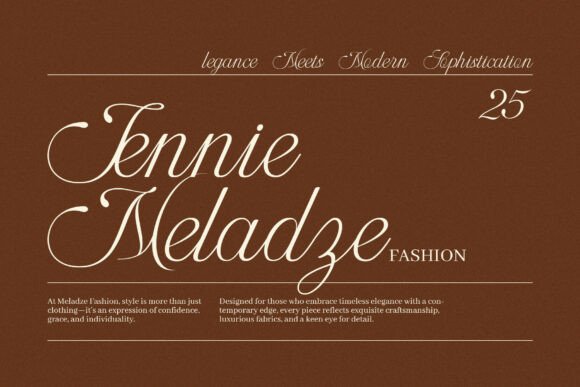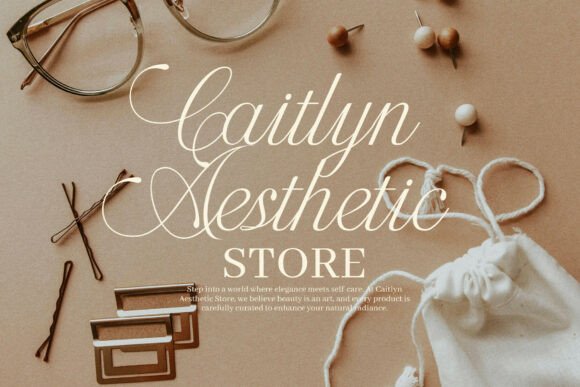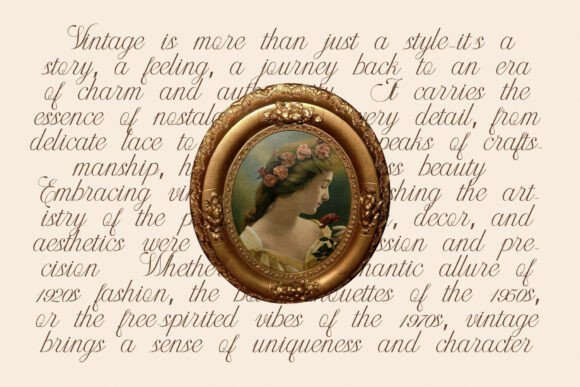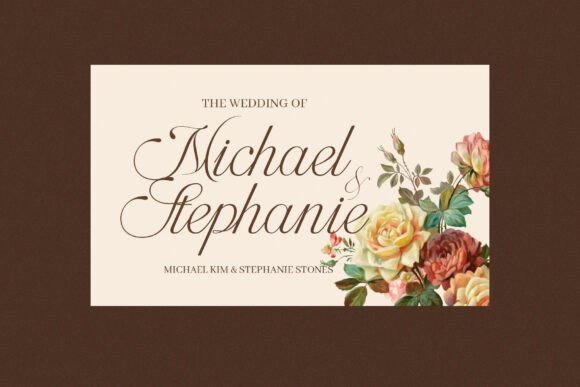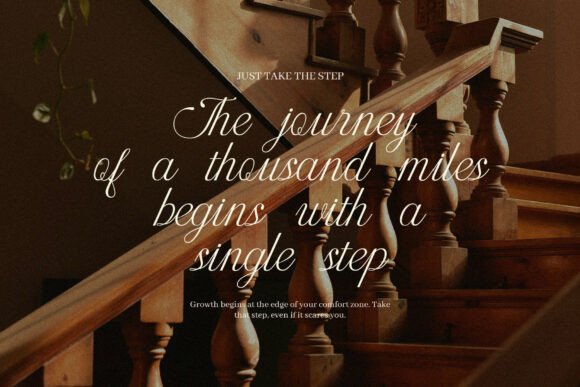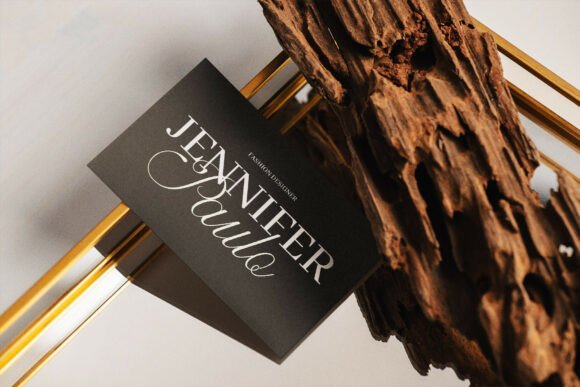
Introducing Amerys Font: Elegance Meets Modern Sophistication
Amerys is a stunning script font that seamlessly blends classic beauty with a modern touch, making it a perfect choice for designers and crafters looking to add a touch of luxury to their projects. At first glance, Amerys showcases refined curves, graceful strokes, and flowing connections that exude both luxury and personality.
The Art of Elegance: Key Features of Amerys Font
One of the standout features of Amerys is its delicate contrast between thick and thin lines, which adds a sophisticated rhythm to the text. This thoughtful design makes each word appear carefully crafted rather than mechanically drawn, giving it a unique and personal touch. The font also boasts long, sweeping flourishes and fine-line strokes, capturing a classic appeal that is perfect for luxury invitations, cosmetic branding, and high-end editorial work.
Perfect for High-End Designs
Amerys is designed for those who seek a touch of grace in every letter. This elegant script font has the power to transform simple text into a beautiful piece of art. Its long swashes and smooth letterforms create a strong visual presence, making it an excellent choice for designers looking to make a statement. Whether you’re working on a luxury brand campaign, a high-end editorial project, or a special invitation, Amerys is sure to impress.
Pairing Amerys with Other Fonts
To create a balanced, high-fashion aesthetic, pair Amerys with a minimalist serif font. This combination speaks to quality and understated beauty, making it perfect for designers who want to convey a sense of sophistication and elegance. The contrast between the flowing script of Amerys and the clean lines of a serif font creates a visually appealing combination that is sure to elevate your designs.
Readability and Versatility
One of the key benefits of Amerys is its readability. Despite its long swashes and elegant design, the font remains easy to read, making it essential for professional design projects. This versatility makes Amerys a valuable addition to any designer’s toolkit, as it can be used for a wide range of applications, from branding and advertising to editorial work and packaging.
Tips for Using Amerys in Your Designs
To get the most out of Amerys, consider the following tips:
- Use Amerys as a headline font to add a touch of luxury to your designs.
- Pair Amerys with a minimalist serif font to create a balanced aesthetic.
- Use Amerys for branding and advertising projects to convey a sense of sophistication and elegance.
Amerys is a truly unique and elegant script font that is sure to elevate your designs. Its classic beauty, modern sophistication, and versatility make it a valuable addition to any designer’s toolkit. Whether you’re working on a luxury brand campaign or a high-end editorial project, Amerys is the perfect choice for designers who want to add a touch of grace and elegance to their work.
Key Features of Amerys Font:
- Elegant script font with refined curves and flowing connections.
- Delicate contrast between thick and thin lines adds sophistication.
- Long, sweeping flourishes and fine-line strokes.
- Perfect for luxury invitations, cosmetic branding, and high-end editorial work.
- Transforms simple text into a beautiful piece of art.
- Pair with minimalist serif font for balanced aesthetic.
- Readable and versatile.